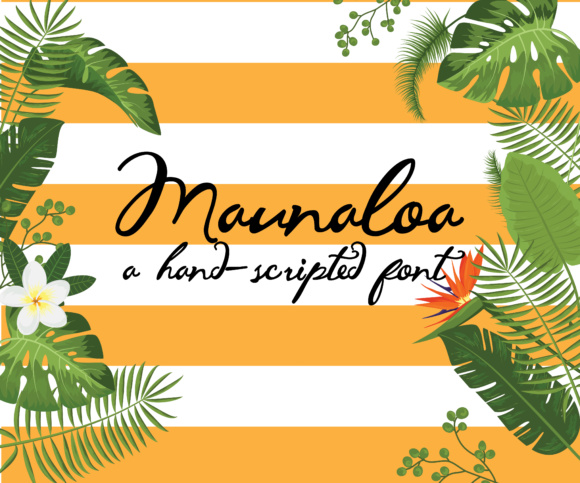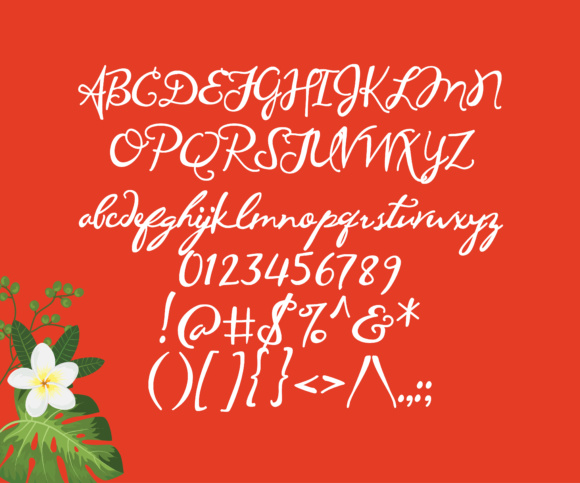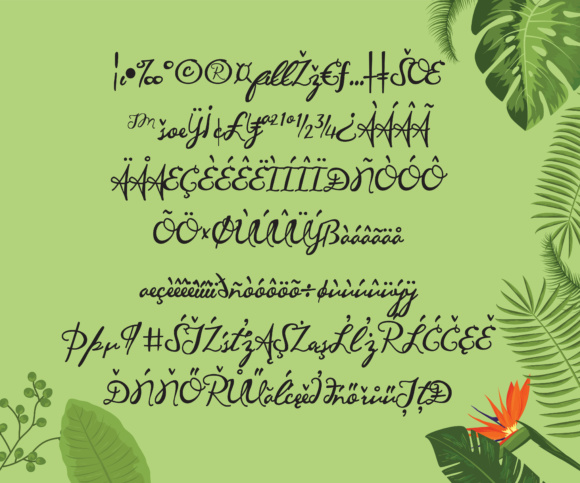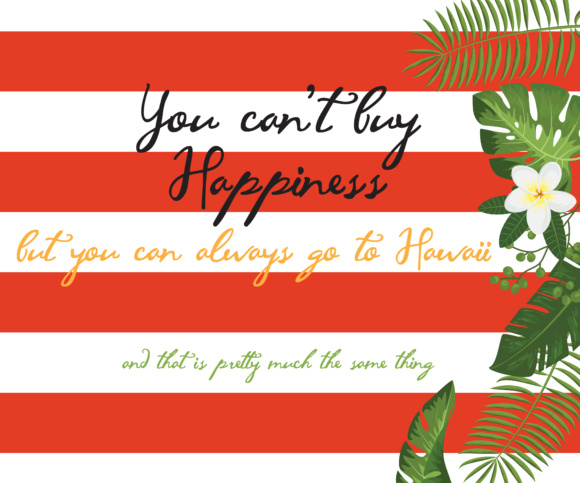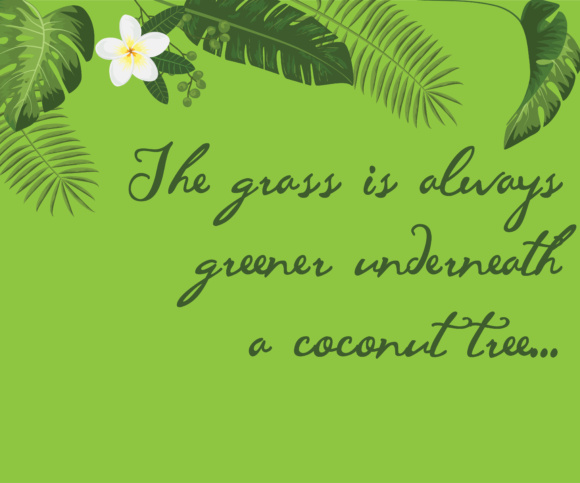
Maunaloa Font
About Maunaloa Font
Maunaloa is a hand-inked script font that has been digitally cleaned up to have a charming effect on your projects. This cursive styled script is a great way to add some fun to your designs.